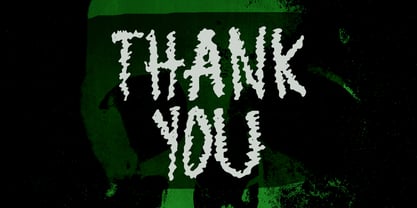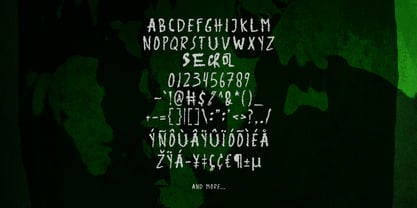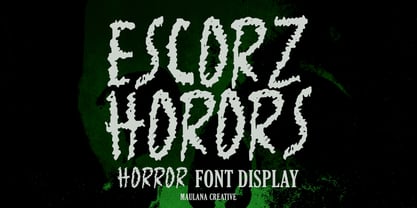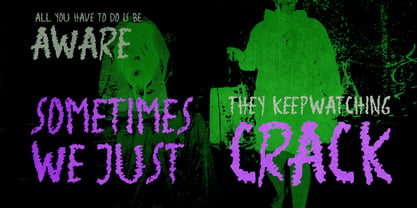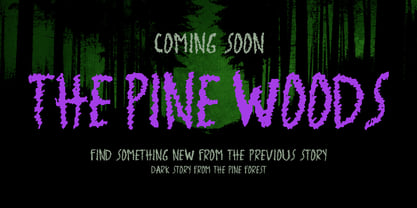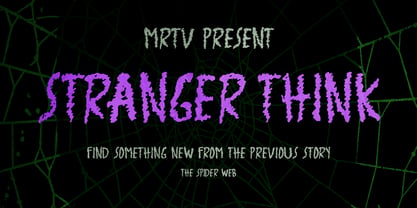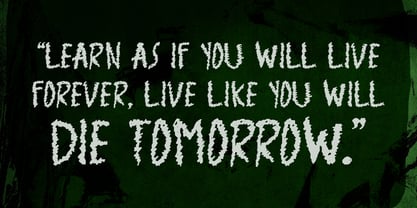
MC Escorz Horors
by Maulana Creative
The MC Escorz Horors Font Family was designed by Gilang Maulana and published by Maulana Creative. MC Escorz Horors contains 1 styles. More about this family
Escorz Horors handmade horror brush display font, fun character with alternates and ligatures. To give you an extra creative work. Escorz Horors handmade brush display font support multilingual language.
Designers: Gilang Maulana
Foundry: Maulana Creative